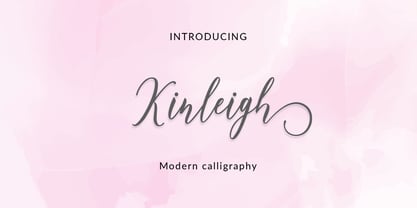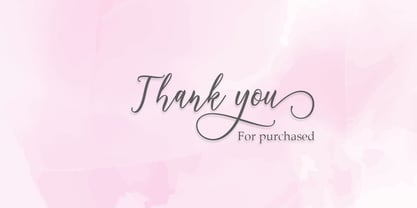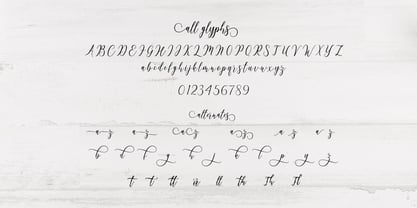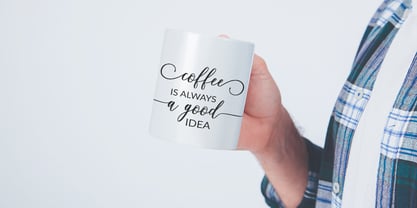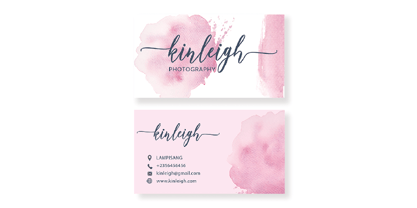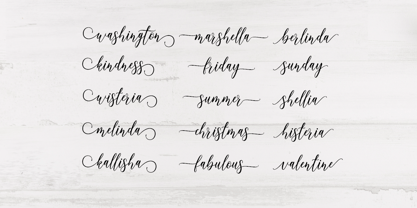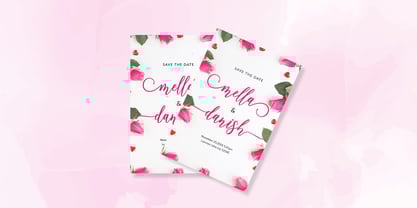
Kinleigh Script
by Amarlettering
The Kinleigh Script Font Family was designed by Kamaruddin and published by Amarlettering. Kinleigh Script contains 1 styles. More about this family
Introducing Kinleigh Script, a harmonious blend of delicacy and elegance rendered as a contemporary script font. Its slender letterforms come alive with fluid strokes and understated curves, crafting a sense of finesse and refinement. Kinleigh Script is an ideal choice for projects demanding a touch of class and chic sophistication, making it a go-to choice for wedding invitations, upscale branding, or high-end editorial design.
Designers: Kamaruddin Kamaruddin
Foundry: Amarlettering